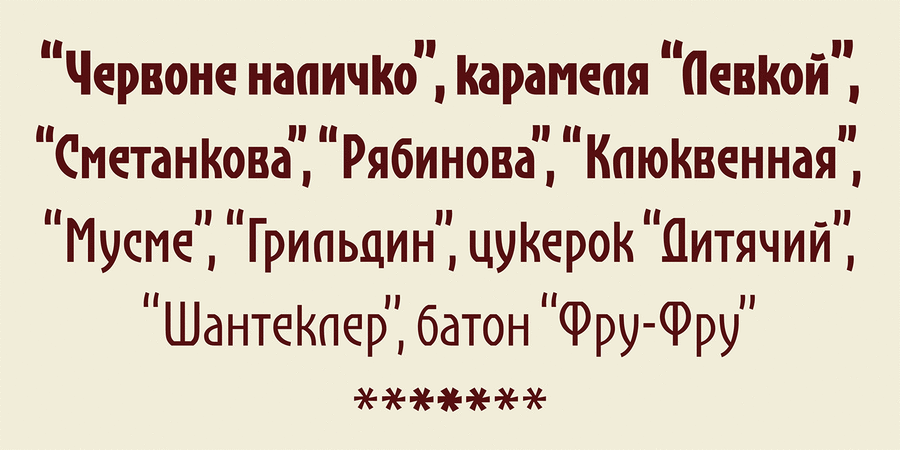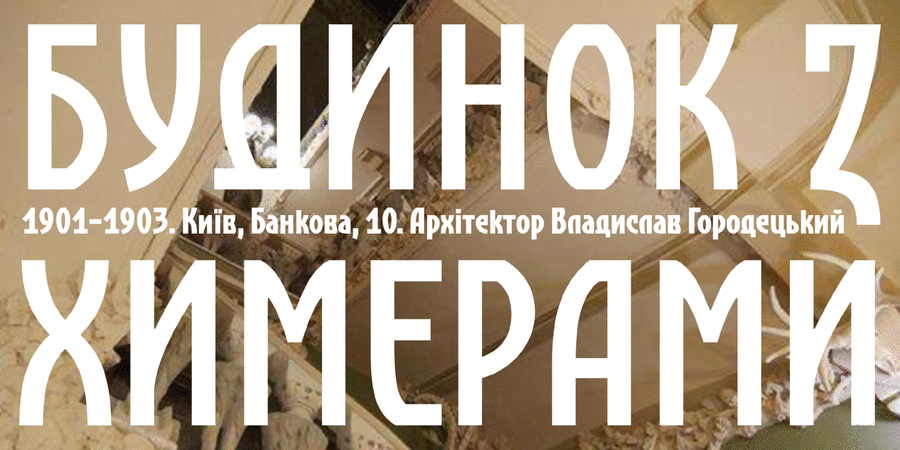
About KonfektThe basis of this font was the advertisement of the Kyiv confectionery factory. Then the font was expanded to a family, which greatly increased its usability. Stylistically, the font bears all the signs of Art Nouveau sans serif – optical axes shifted up and down, curved arcs and straight strokes, capricious and unexpected solutions of individual letters. At the same time, some geometrization allows it to confidently keep the line, and the narrowed proportions and light styles are great for composing small inscriptions in advertisements, signboards, magazines, menus, packaging, etc. The typeface was designed by Viktor Kharyk and Gennady Zarechnyuk in 2019–2020.
slim, thin, artistic, tall, conservative, historical, solid, crisp, handicraft, craft brewed, flexible, sharp, durable, strong, stable, reliable, wooden, heavy, iron, splashy, notable, formidable